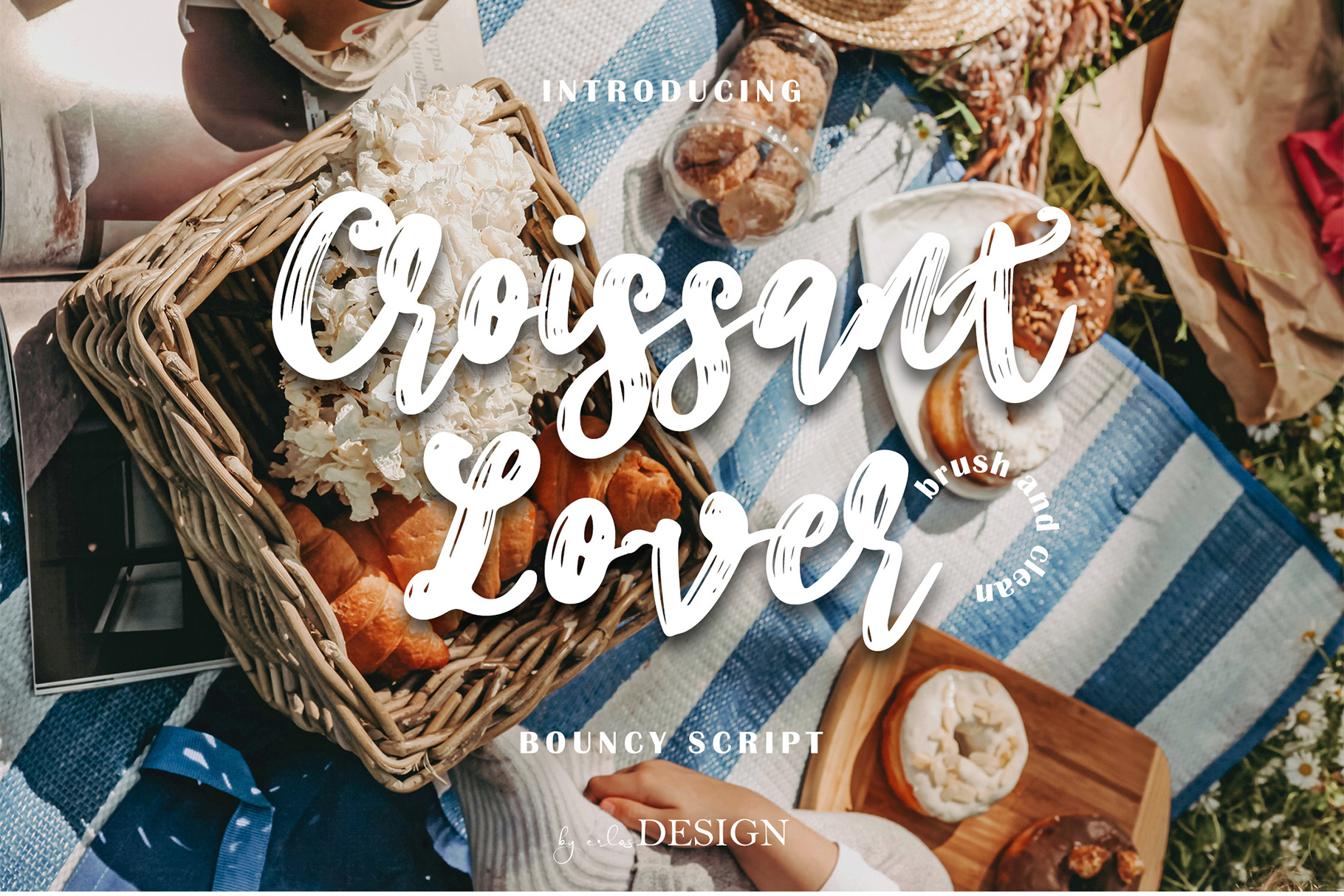
Croissant Lover - Brush Font
Croissant Lover - Brush Font by erlosDESIGN
Croissant Lover is a stylish and whimsical, brushed script font. It has a clean and smooth vibe and it will be a hit for any design that you want to add it to. It is suitable for any branding, product packaging, invitation, quote, t-shirt, label, poster, logo that you wish to develop.